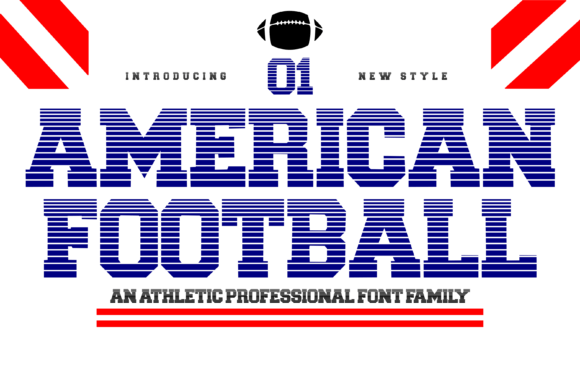
A Touchdown for Creativity: American Football 01 Font
You know that feeling when you’re brainstorming ideas and everything just clicks? The creative juices are flowing, and you can’t wait to bring your vision to life. It’s that moment when you need the perfect font to elevate your design from ordinary to extraordinary. Enter the American Football 01 Font, a charming display font that’s sure to score big with your audience.
This cute and casual font is perfect for Instagram posts, DIY projects, or any creative endeavor that needs a friendly touch. With its playful feel, American Football 01 Font is a valuable asset for designers looking to add a personal touch to their work. Whether you’re a seasoned pro or just starting out, this font is sure to inspire your next big idea.
- Font Family: American Football 01
- Font Styles: Regular, Bold, Italic, Bold Italic
- Unique Characteristics: Geometric shapes, bold lines, and a dynamic feel make this font ideal for sports-related designs, especially American football.
Designer Review: American Football 01 Font
First off, I want to say that the bold weight of this font ✨ is impressive. It’s perfect for headlines and titles where you want to make a statement. The font’s thick lines give it a solid, athletic feel that’s fitting for its name.
Another great aspect of American Football 01 is its versatility ✨. It works well for both digital and print designs, and its font width is suitable for a variety of font sizes. This makes it a great choice for designing posters, jerseys, or even digital graphics.
However, I do have some concerns about the limited language support ⚠️. As of my knowledge cutoff, American Football 01 only supports the Latin alphabet, which might be a problem for designers working with languages that require non-Latin scripts.
Additionally, the font’s line height and letter spacing could be improved ⚠️. At times, the font looks a bit cramped, which can affect readability. However, this is largely dependent on the design context and the font size.
Overall, American Football 01 is a solid choice for sports-related designs. While it has some limitations, its strengths make it a great option for designers who want a bold, athletic font.
- Great for digital and print designs
- Versatile font width
- Impressive bold weight
- Only supports Latin alphabet
- Line height and letter spacing could be improved
The “American Football 01 Font” is ideal for designing sports-related graphics, such as:
- Sporting event posters
- Team logos
- Scoreboards
- Sporting news headlines
A classic, serif font with a strong, solid feel. It’s suitable for body text, titles, and other elements that require a sense of tradition and stability.
Rockwell Font is a more traditional choice compared to American Football 01 Font, which has a modern, sports-themed feel. It’s a better choice when you need a font that evokes a sense of history and reliability.
Q: Is the American Football 01 Font optimized for use in digital displays?
Yes, the American Football 01 Font has been optimized for use in digital displays, including high-resolution screens and mobile devices. The font’s design and technical specifications ensure crisp and clear rendering on a wide range of devices, making it ideal for use in digital signage, social media, and other online applications.